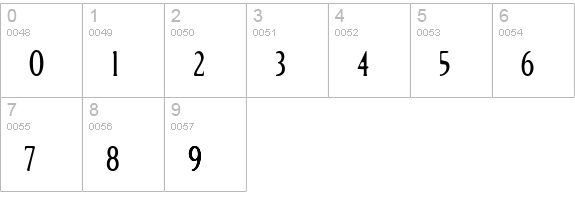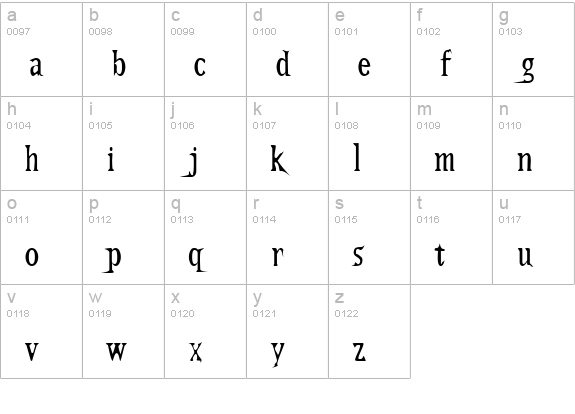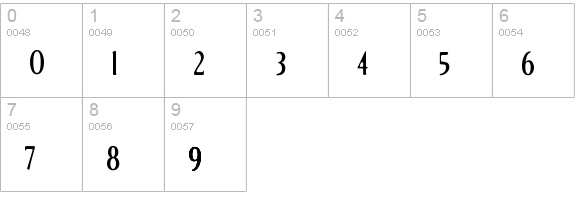
Kallamar Font Details
The Kallamar font is a stunning typeface that exudes elegance and sophistication. Its sleek and modern design makes it perfect for a wide range of projects, from branding and packaging to editorial and web design. With its clean lines and balanced proportions, Kallamar brings a sense of professionalism and refinement to any text. The sharp edges and subtle curves create a harmonious contrast that is visually appealing and easy to read. Whether used for headings, body text, or even logos, this font is sure to make a lasting impression. What makes Kallamar even more appealing is the fact that it is free! Yes, you read that right. This incredible font is freely available to download at FontsMarket.com. Now you can elevate your creative projects without breaking the bank. Downloading and installing Kallamar is a breeze, and once you have it on your computer, the possibilities are endless. Its versatility allows it to be used in a variety of design styles, from minimalist and contemporary to bold and expressive. The character set includes a wide range of glyphs, making it suitable for multiple languages and typographic needs. So why wait? Take advantage of this amazing opportunity to enhance your designs with the Kallamar font. Download it for free today at FontsMarket.com and let your creativity soar.